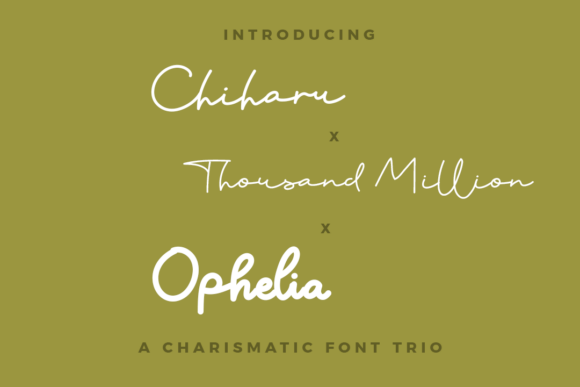
Introducing the Captivating Trio of Chiharu, Thousand Million, and Ophelia Fonts
In the realm of typography, few things are as captivating as the elegance of cursive handwriting. The fluid strokes, the artistic flair, and the personal touch that cursive fonts bring to design projects are unparalleled. Today, we’re excited to introduce a trio of fonts that embody the essence of cursive beauty: Chiharu, Thousand Million, and Ophelia. Each of these fonts brings its unique charm and versatility, making them perfect for a wide range of design applications.
The Elegance of Chiharu
Chiharu, a name that draws inspiration from Japanese culture, translates to “a thousand questions” or “a thousand springs,” symbolizing depth and continuity. This elegant font is designed to add an exquisite touch to any design project. Its cursive strokes are meticulously crafted to provide a seamless reading experience while imparting a sense of sophistication and grace. Chiharu’s design makes it an ideal choice for projects that require a touch of elegance and refinement, such as luxury branding, high-end product packaging, and editorial content.
One of the standout features of Chiharu is its ability to convey a sense of tradition while still feeling contemporary. This balance makes it incredibly versatile, suitable for both digital and print media. Whether you’re designing a wedding invitation, a fashion magazine, or a luxury brand’s website, Chiharu can elevate your project with its beautiful, flowing script.
The Versatility of Thousand Million
Thousand Million is a wonderfully versatile font that effortlessly bridges the gap between formal and casual designs. Its cursive strokes are fluid and natural, providing a sense of movement and energy. This font is perfect for designers looking for a script that can adapt to various design needs, from elegant event invitations to more relaxed, personal projects like blogs or social media graphics.
The beauty of Thousand Million lies in its readability and charm. It can add a personal touch to your designs without compromising on legibility, making it an excellent choice for body text in editorial projects, captions in social media posts, or even as a headline font for blogs and websites. Its versatility also extends to its pairing capabilities; Thousand Million can complement a wide range of fonts, allowing designers to create visually appealing and harmonious typography schemes.
The Sophistication of Ophelia
Ophelia, with its graceful curves and sophisticated style, is a font that never fails to impress. Inspired by literary and historical references, Ophelia brings a level of drama and elegance to any design. Its cursive script is characterized by flowing lines and intricate details, making it a perfect fit for projects that demand a high level of sophistication and refinement.
Ophelia shines in designs where making a statement is key. It’s an excellent choice for movie posters, book covers, and high-end brand advertisements. The font’s ability to convey emotion and add a narrative element to your designs makes it invaluable for creative projects. Moreover, Ophelia’s unique character set, including a range of ligatures and alternate characters, provides designers with the tools to create truly bespoke typography.
Enriching Your Designs with the Trio
The artistic versatility and charm of the Chiharu, Thousand Million, and Ophelia font trio can significantly enrich your designs. Whether you’re working on a personal project or a professional assignment, these fonts offer a range of possibilities:
- Elegant Stationery: Use Chiharu or Ophelia for creating luxurious stationery sets, including invitations, thank you cards, and personal letters.
- Digital Content: Thousand Million is perfect for bloggers and social media influencers looking to add a personal touch to their digital content.
- Branding and Advertising: Ophelia’s dramatic flair makes it suitable for movie posters, book covers, and high-end brand campaigns, while Chiharu and Thousand Million can be used for more subtle branding efforts.
The combination of these fonts can also lead to interesting and dynamic typography. Experimenting with different weights, sizes, and color schemes can help you create visually striking designs that capture attention and convey your message effectively.
The introduction of the Chiharu, Thousand Million, and Ophelia fonts marks a significant addition to the world of typography. These three elegant fonts, with their unique characteristics and versatile applications, offer designers a powerful toolkit for creating stunning and effective designs. Whether you’re aiming for elegance, versatility, or sophistication, this captivating trio has the potential to elevate your projects and bring a new level of artistic expression to your work.
Embracing the beauty of cursive handwriting, Chiharu, Thousand Million, and Ophelia invite you to explore new creative horizons. So, dive into the world of elegant typography and discover how these fonts can transform your designs into timeless pieces of art.